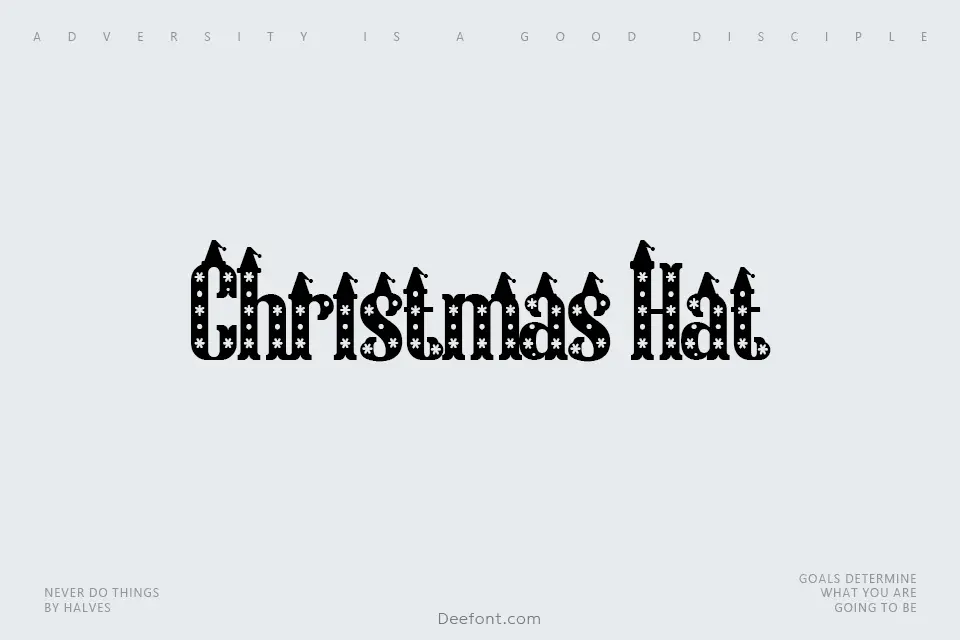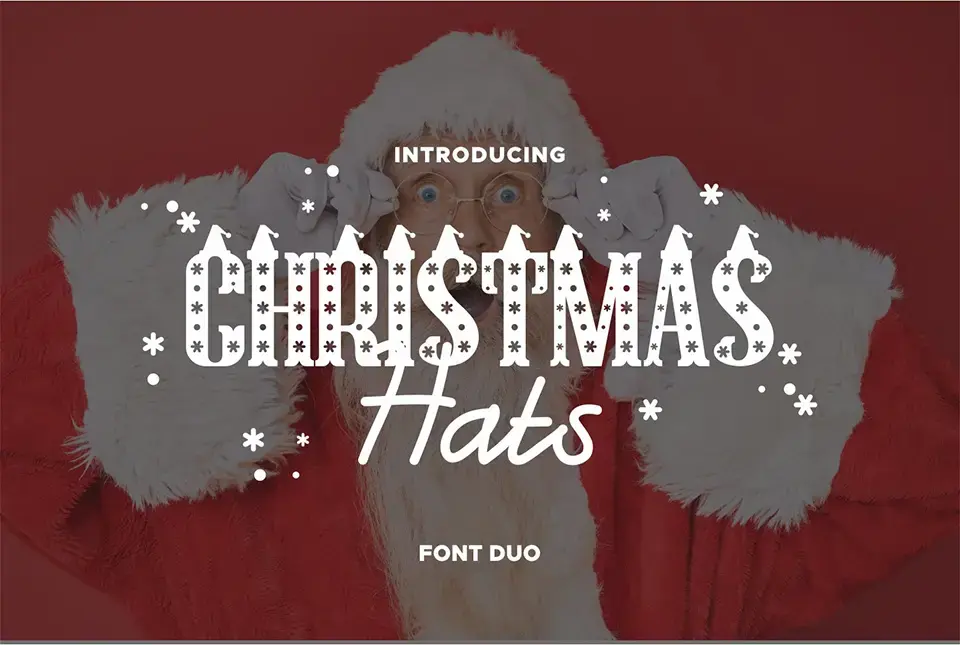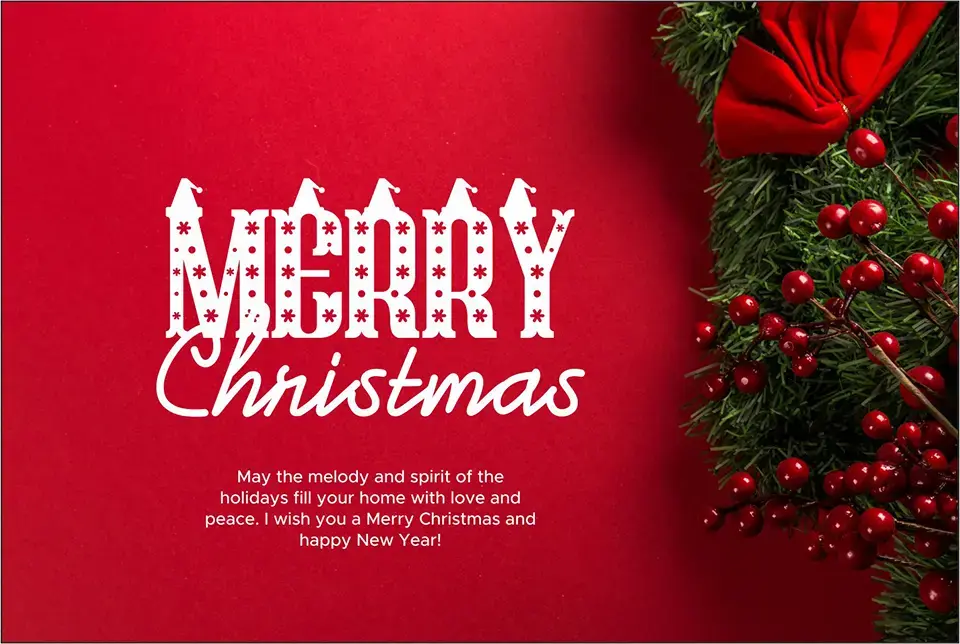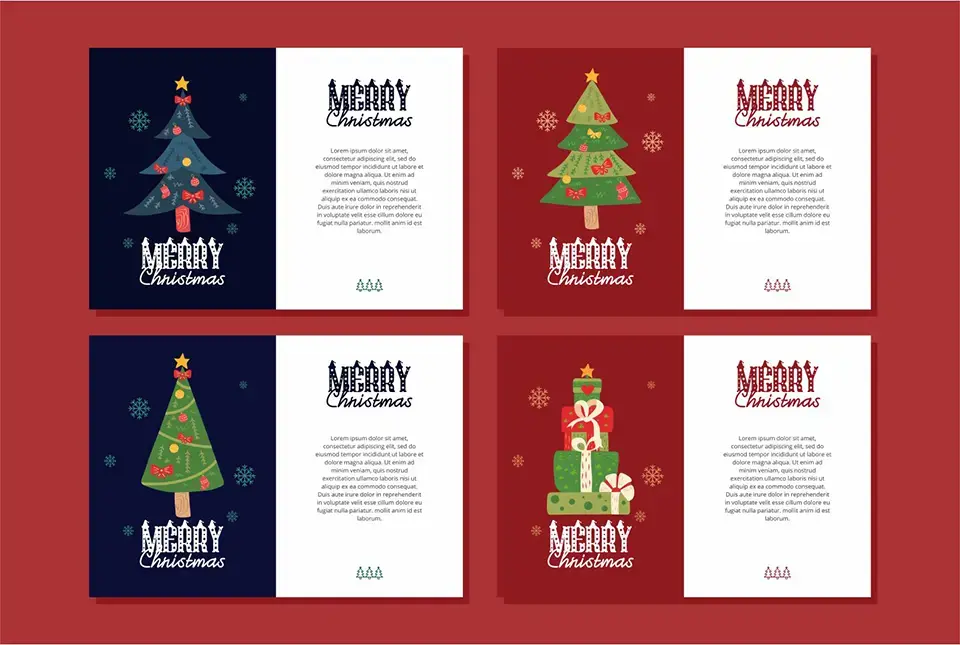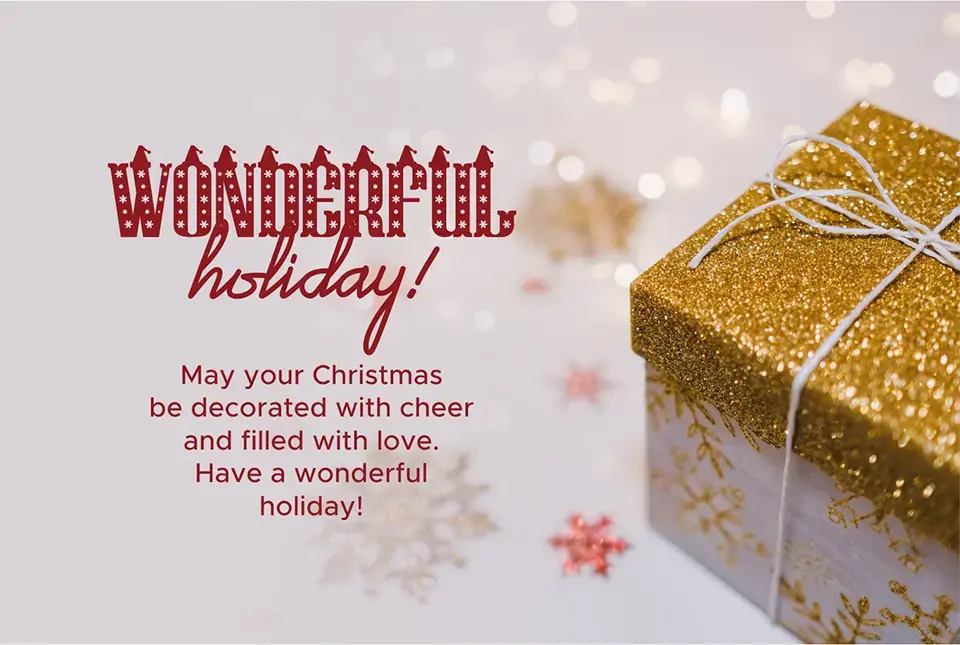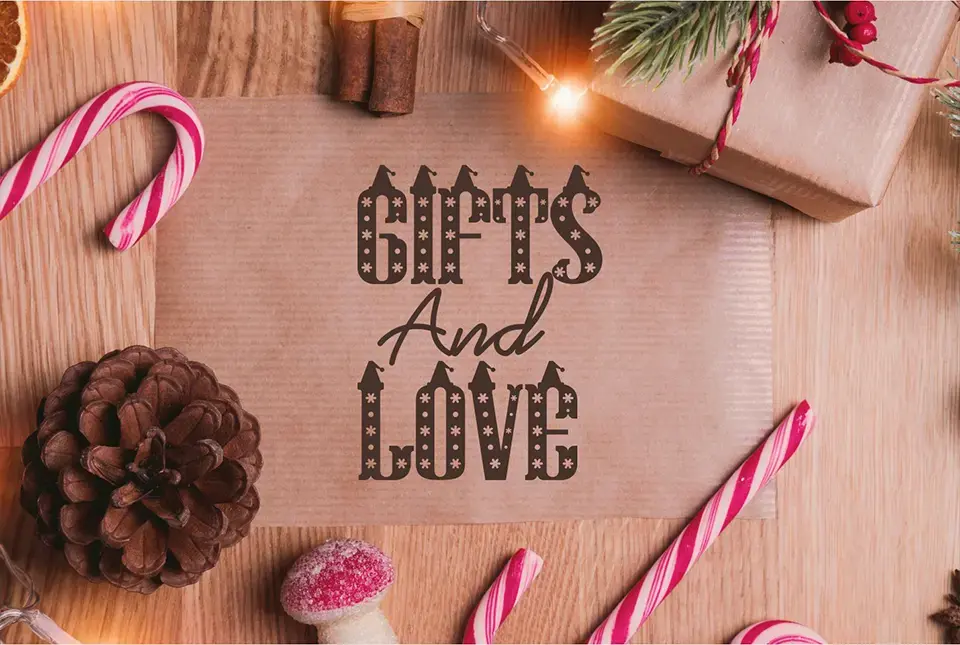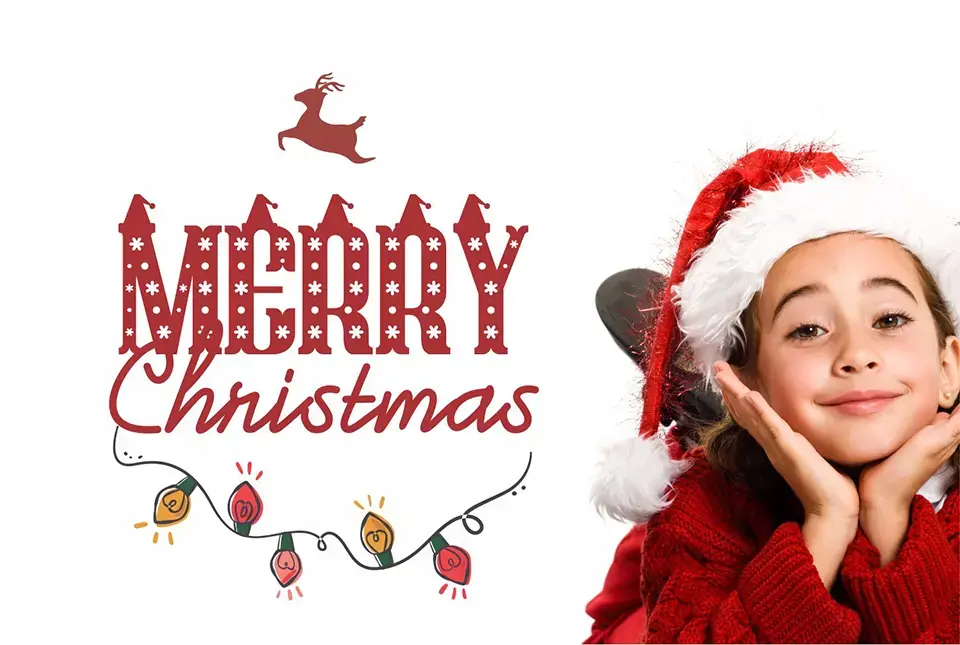
Christmas Hat Font
Christmas Hat is a festive decorative font that captures the joyful spirit of the holiday season. This playful typeface features charming Christmas-themed elements and whimsical letterforms perfect for holiday cards, seasonal promotions, festive invitations, and merry social media graphics. Designed with creative holiday projects in mind, Christmas Hat adds a cheerful, yuletide touch to any design while maintaining excellent readability for both digital and print applications.